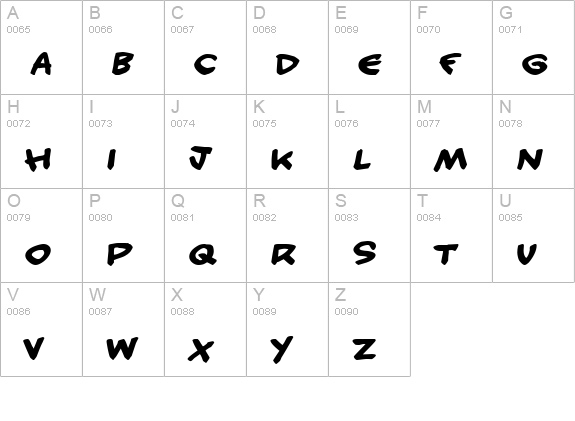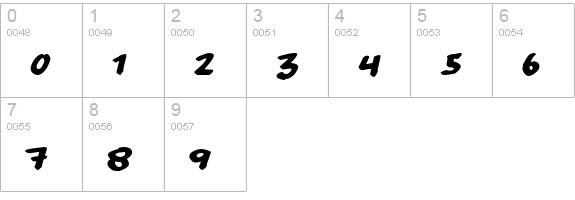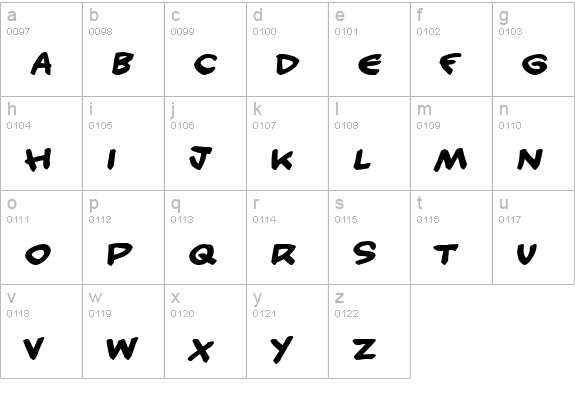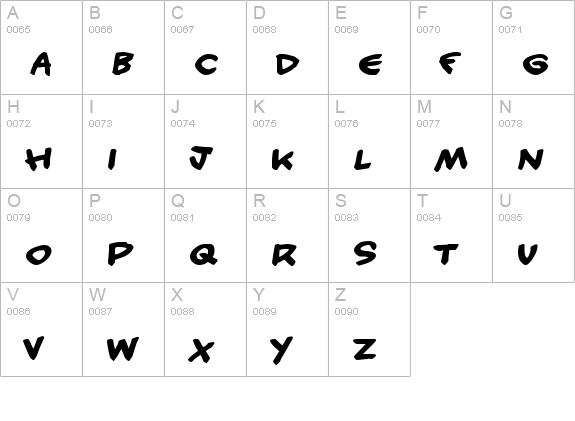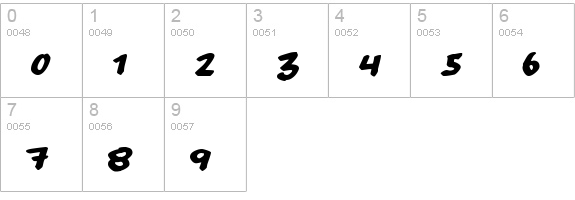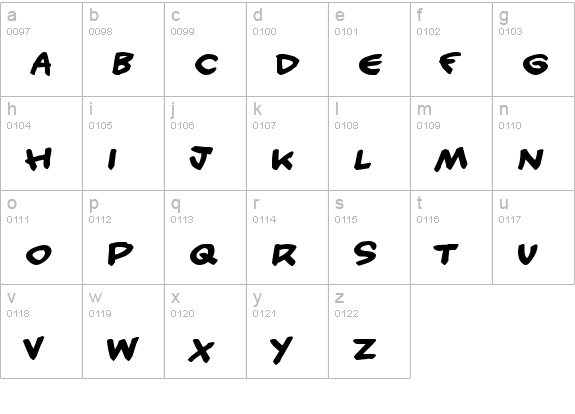
Handy candy Font Details
Handy Candy font is a delightful and whimsical typeface that will add a touch of sweetness to any design project. With its playful and rounded letterforms, this font captures the essence of childhood nostalgia, making it perfect for creating eye-catching logos, posters, and invitations. What sets Handy Candy font apart is that it is not only visually appealing, but also free to download. Yes, you heard it right! This charming typeface is freely available to download at FontsMarket.com, where you can easily access it and bring a touch of candy-coated fun to your creative endeavors. Whether you're designing for a children's party, a confectionery brand, or simply want to inject a dose of playfulness into your designs, Handy Candy font is the perfect choice. Its legibility and unique character make it suitable for a wide range of applications, from digital to print. With Handy Candy font, your designs will instantly evoke a sense of joy and lightheartedness. Its vibrant and cheerful nature will grab attention and leave a lasting impression on your audience. So, why wait? Head over to FontsMarket.com and download Handy Candy font for free today. Unleash your creativity and let the sweetness of this font take center stage in your next design project.